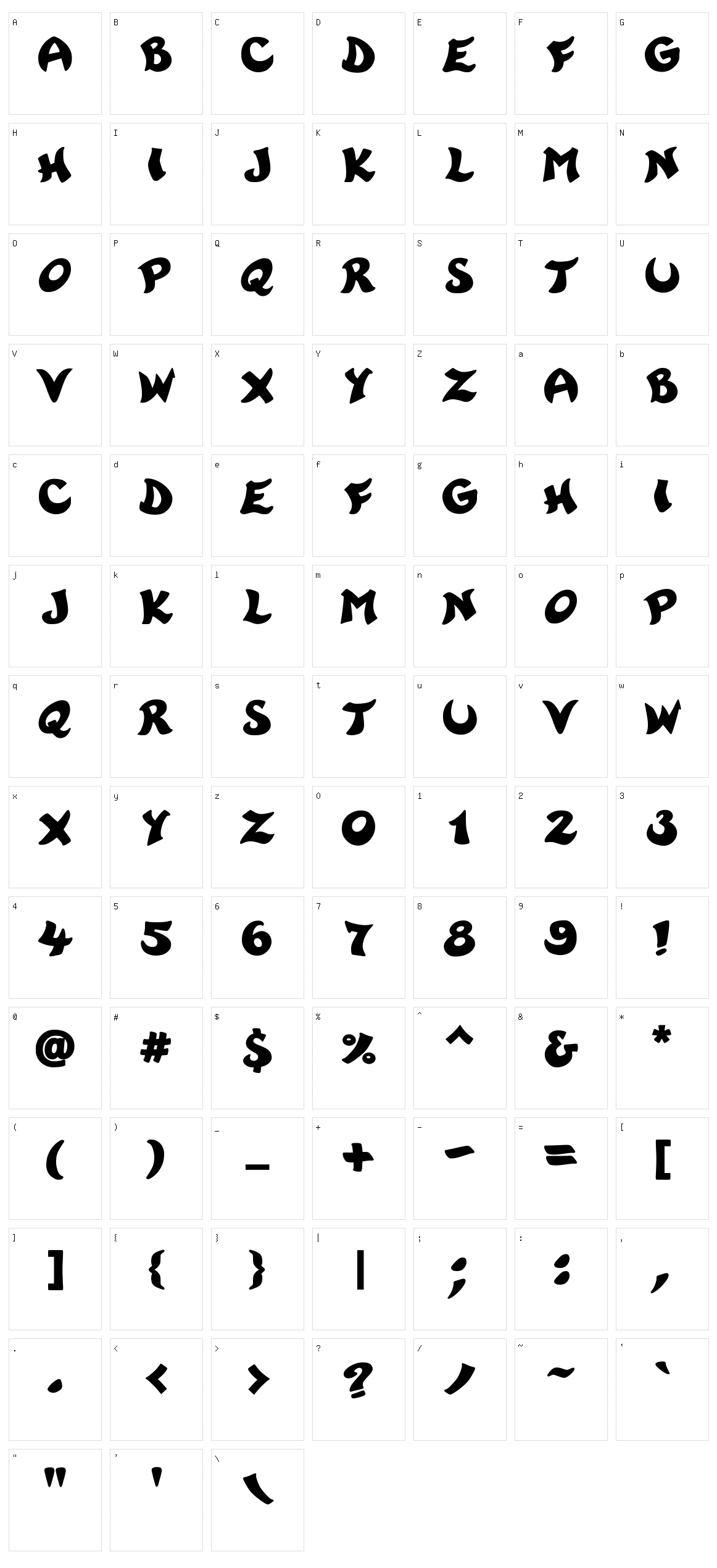
The free font Rayman 2 is carefully designed by absynthe1812, showcasing a thoughtful balance of creativity and usability and falls under the Cartoon font style. When you download the ZIP file, it contains only 43.78 KB of font files, making it lightweight and quick to download. Please review the license details below to understand permitted usage and distribution rights. If license information is not available, we recommend using this font for personal projects only or contacting the author directly for commercial usage permissions.